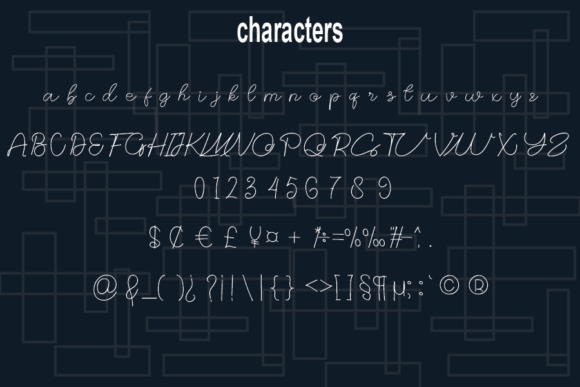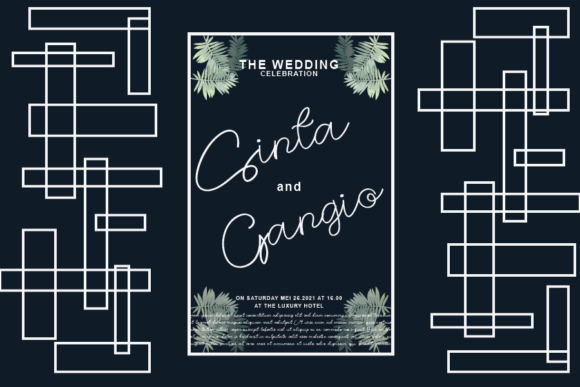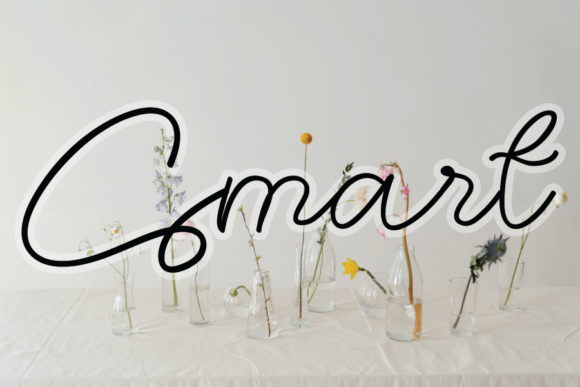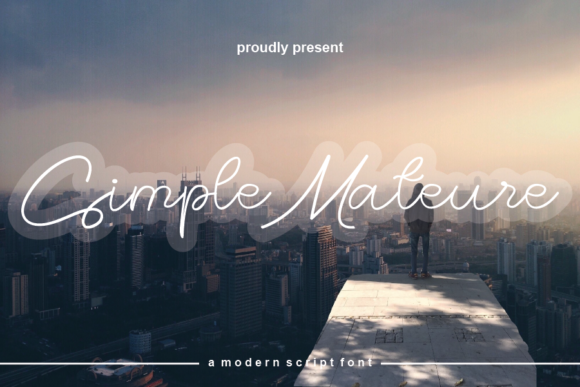
Introduction to Simple Mateure Font
Simple Mateure is a thin and friendly script font.
Fall in love with its completely different and timeless style and use it to create spectacular designs .
Key Features of Simple Mateure Font
Why Choose Simple Mateure Font?
Simple Mateure Font offers exceptional quality and versatility, making it a valuable addition to your design toolkit. Whether you’re creating for personal projects or commercial use, Simple Mateure Font delivers professional results.